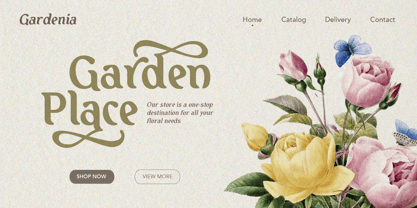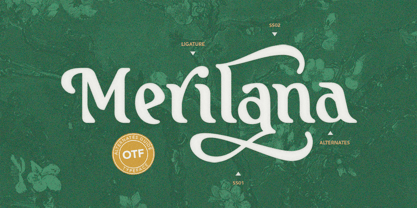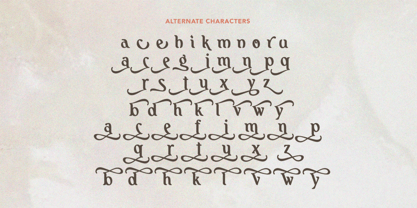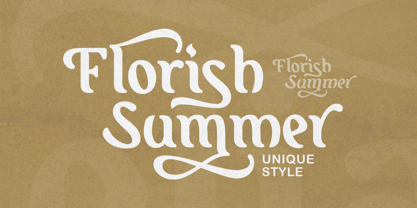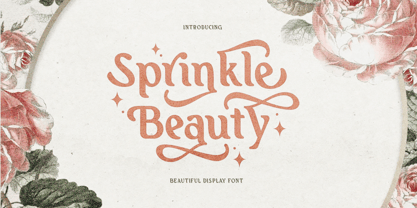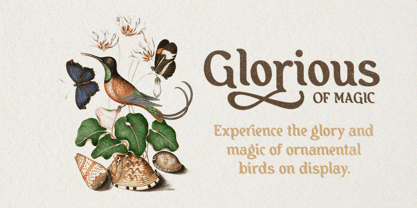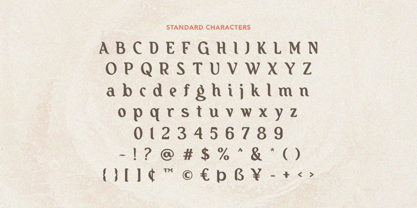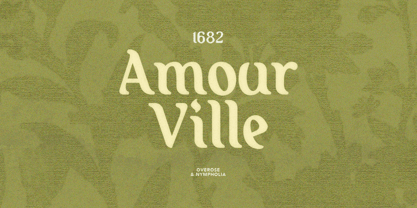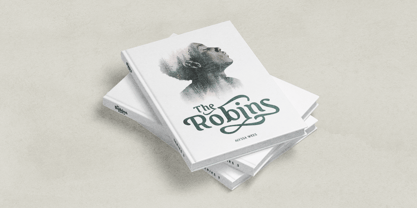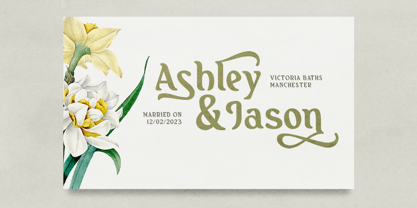
Sprinkle Beauty
The Sprinkle Beauty Font Family was designed by Dzikrul Aulia and published by Bale Type. Sprinkle Beauty contains 2 styles and family package options.
Sprinkle beauty is a beautiful display font with bold style based on serif. With stunning alternates, you can make your project more appealing and attractive. You can use this font for many purposes such as wedding invitations, quotes, branding, and logo. This font also support multi language!